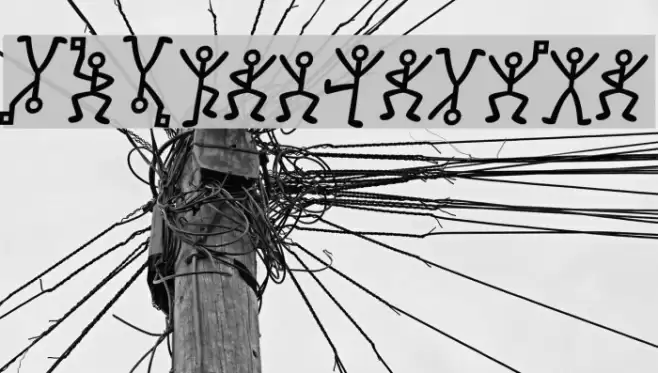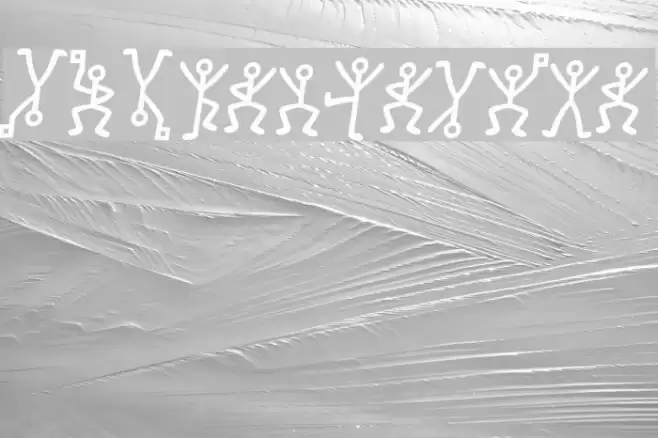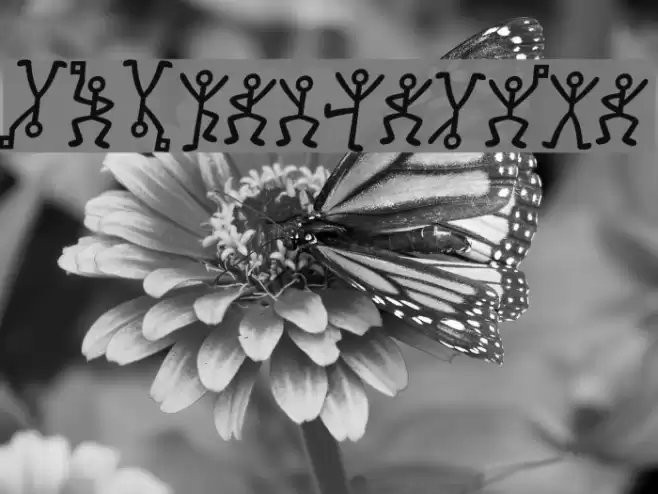
GL-DancingMen Font
GL-DancingMen Description
This unique and playful font features characters designed as stick figures in various dancing poses. Each letter is represented by a different dance move, creating a whimsical and lively appearance. The figures are simplistic, with circular heads and linear limbs, conveying a sense of movement and joy. The font is highly decorative and unconventional, making it ideal for creative projects that require a fun and engaging visual element. It is not suitable for body text due to its intricate design but can be a standout choice for headlines or thematic designs.
A playful font with characters as dancing stick figures from Uncategorized fonts.
- Proposed Projects: Ideal for party invitations, children's books, playful branding, or any project needing a fun and lively touch.